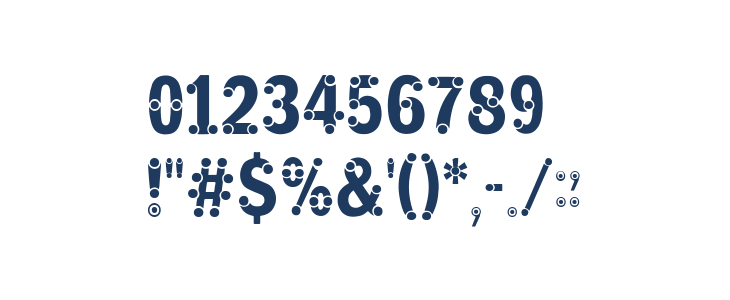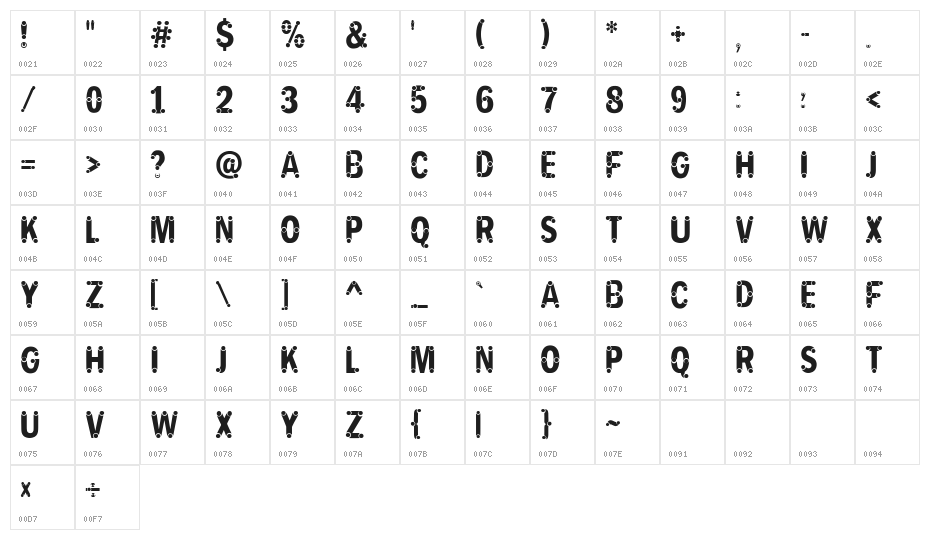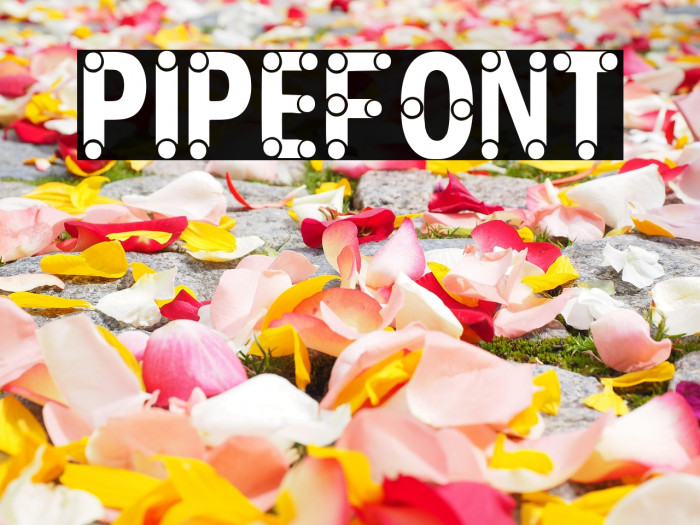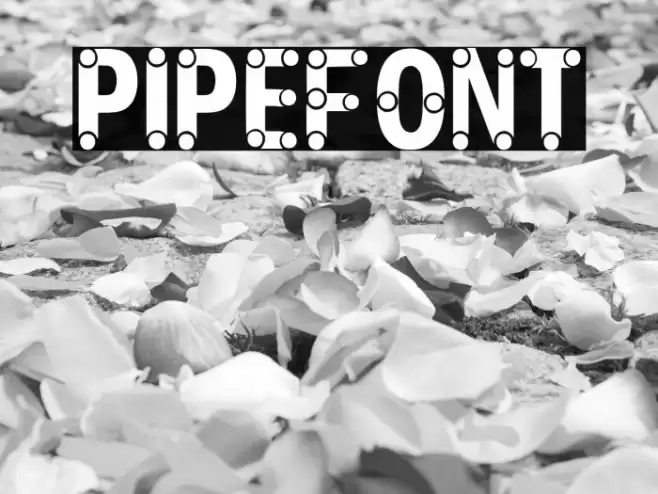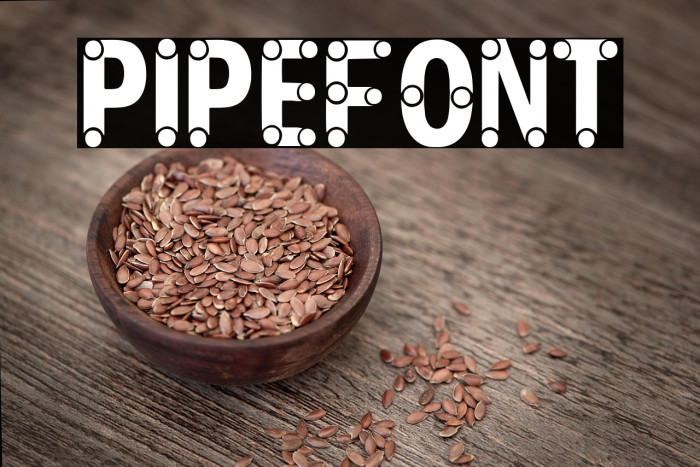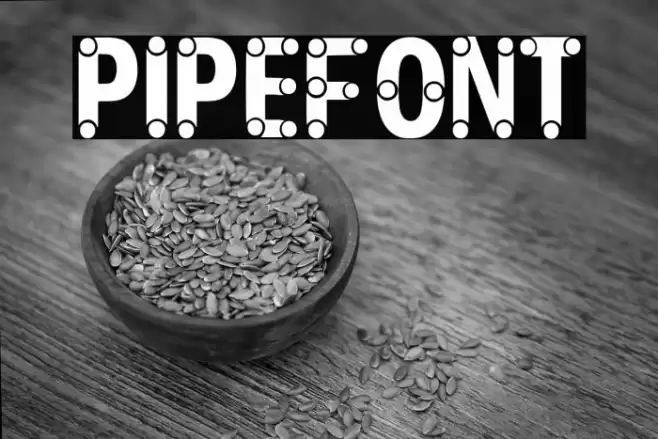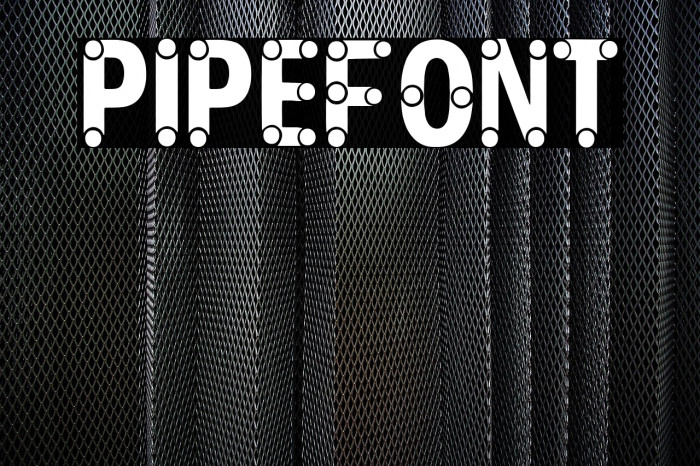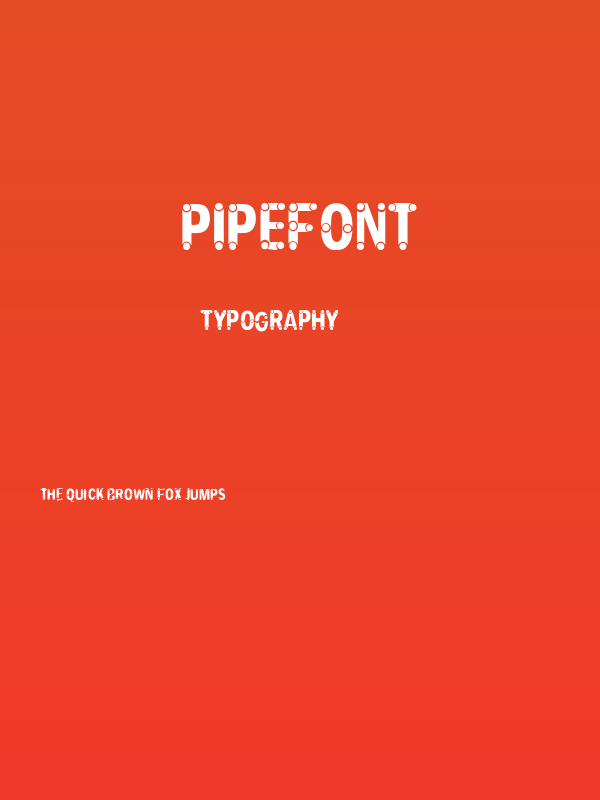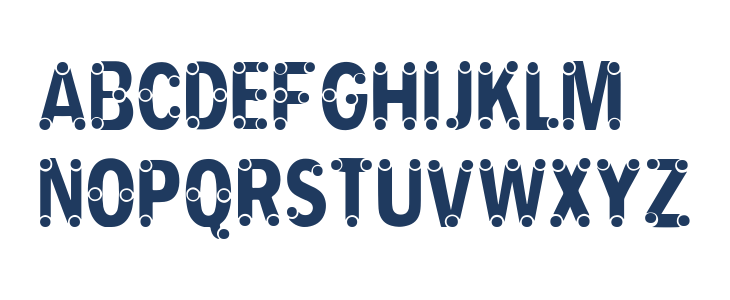
PIPEFONT Font
This font features a unique and playful design, characterized by bold, rounded letters with circular accents that resemble pipes or tubes. Each character is constructed with a solid black fill, and the circular elements add a decorative touch, making the font stand out. The uppercase and lowercase letters maintain a consistent style, with the numbers and special characters following the same design principles. The overall appearance is modern and eye-catching, suitable for creative and fun projects.
| Proposed Projects | Ideal for posters, children's books, playful branding, and creative advertisements. |